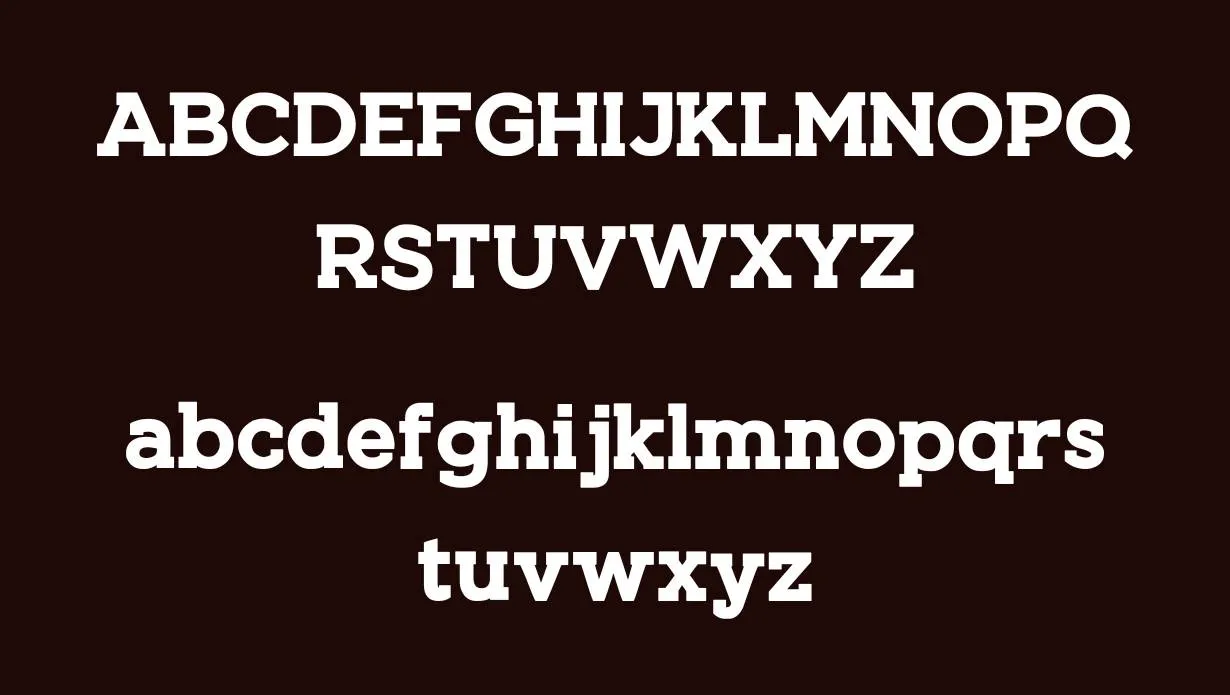
Introducing Arizon Font, a bold, stylish, and unique Serif typeface. This font was created and shared by Beartype.
This unique typeface has only uppercase and lowercase characters. It originates in a bold and fantastic appearance that makes it perfect for high-quality projects.
Arizon Font Family